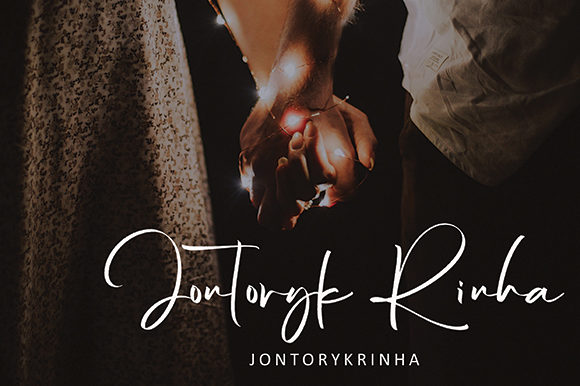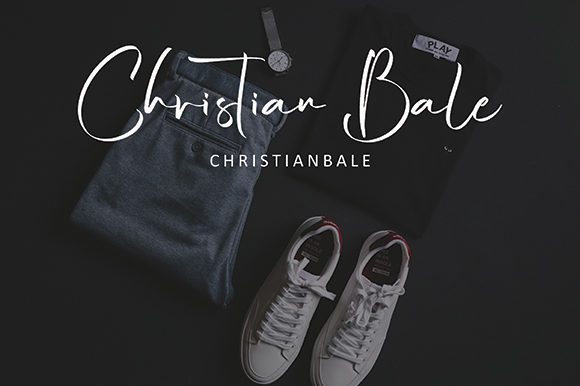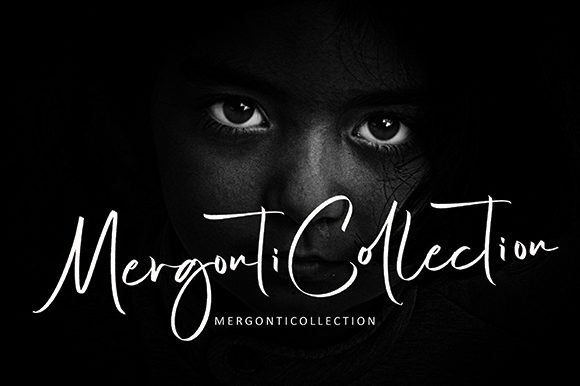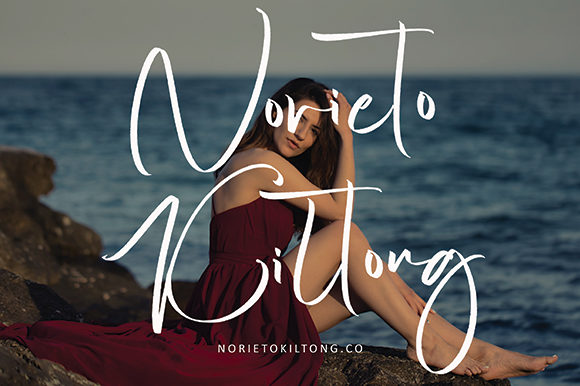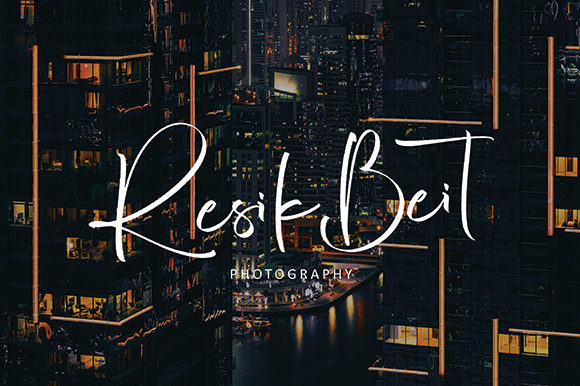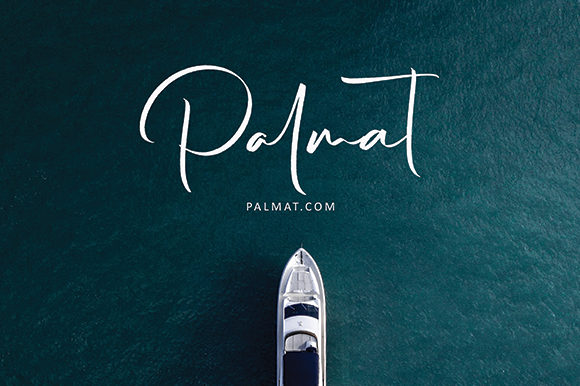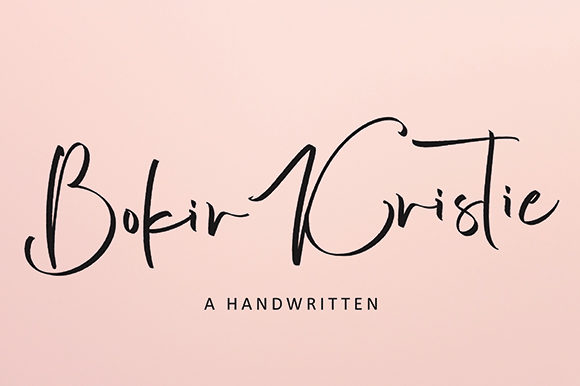
The Magical World of Bokir Kristie Font: A Designer’s Delight
I’ll never forget the moment I stumbled upon the Bokir Kristie font while working on a branding project for a luxury wedding planner. I was on a tight deadline, and my client was being super picky about the font style. I had tried countless script fonts, but none seemed to capture the elegance and whimsy she was looking for. That was until I discovered Bokir Kristie – a magical script font that turned my design from meh to mesmerizing!
So, what makes Bokir Kristie so special? Here are a few things that I absolutely adore about this font:
- ✨ Elegant and refined: Bokir Kristie exudes sophistication and poise, making it perfect for high-end branding projects.
- ✅ Highly versatile: This font works beautifully for both digital and print applications, from social media graphics to wedding invitations.
- 🌈 Beautifully crafted: The attention to detail in this font is exceptional, with intricate swashes and flourishes that add a touch of magic to any design.
Of course, no font is perfect, and Bokir Kristie does have a few quirks:
- 🤔 Limited use of uppercase letters: While the lowercase letters are stunning, the uppercase letters are not as ornate, which might be a drawback for some designers.
- ⚠️ May require additional kerning: As with any script font, you might need to adjust the kerning to ensure that the letters flow smoothly.
- Experiment with the font’s OpenType features, such as swashes and stylistic alternates, to add visual interest.
The Story Behind Bokir Kristie: Designer Inspiration
While the true story behind Bokir Kristie’s creation remains a mystery, it’s easy to imagine that the designer was inspired by the world of luxury and elegance. Perhaps they spent hours pouring over vintage typography books, searching for the perfect blend of classic and modern elements. Whatever the inspiration, the result is a font that truly stands out in the world of typography.
Q: What makes Bokir Kristie so special?
A: Bokir Kristie is a unique blend of elegance and whimsy, making it perfect for high-end branding projects and creative designs.